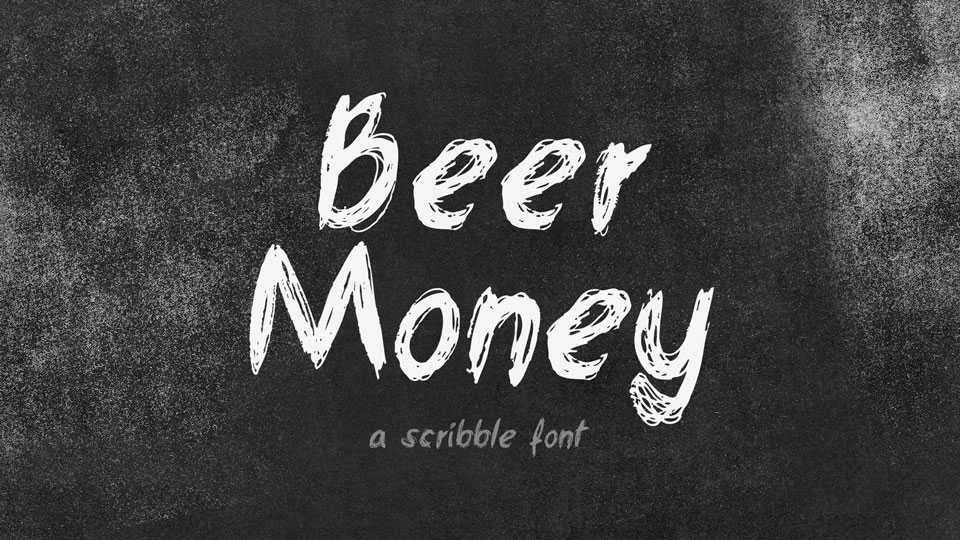
Download Beer Money font, a hand drawn scribble typeface with natural rough texture. Beer Money font perfectly fits for grungy designs, posters, flyers, t-shirts and other creative projects.
Designer: Roland Huse